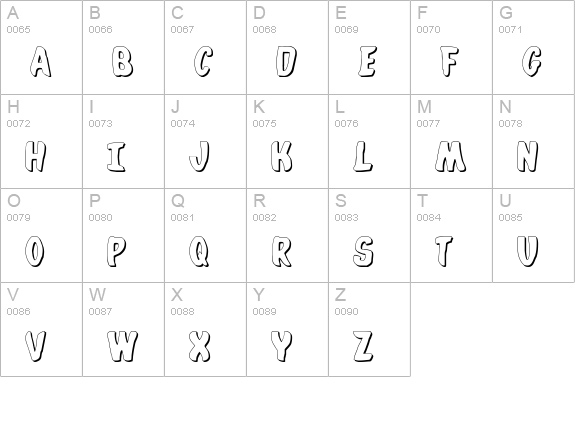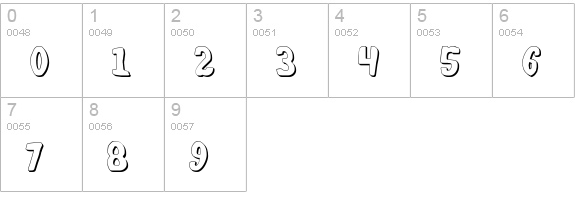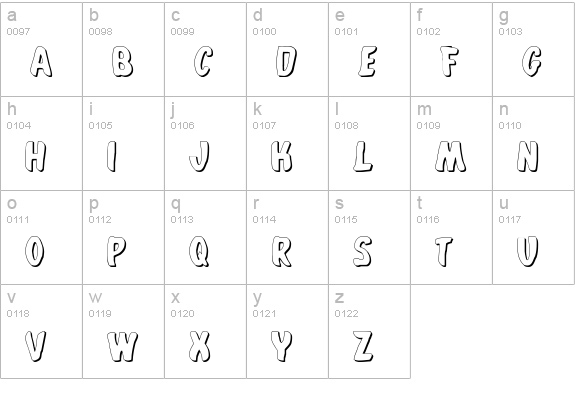
Whatafont Shadow Font Details
Introducing Whatafont Shadow, a stunning typeface that will add a touch of elegance and sophistication to any design project. This captivating font features a unique shadow effect that adds depth and dimension to each letter, making it perfect for eye-catching headlines, stylish logos, and memorable branding materials. Whatafont Shadow is designed with meticulous attention to detail, ensuring each character is perfectly balanced and harmoniously interconnected. Its sleek and modern appearance exudes confidence and professionalism, making it a versatile choice for a wide range of creative applications. Not only does Whatafont Shadow offer exceptional aesthetics, but it also boasts exceptional functionality. With a wide range of weights and styles, this font allows for seamless versatility and adaptability across various design contexts. Whether you're aiming for a bold and impactful statement or a subtle and refined look, Whatafont Shadow has got you covered. What's even better is that Whatafont Shadow is available for free download exclusively at FontsMarket.com. This means that you can easily access and enjoy this remarkable font without any hassle or financial burden. Embrace the freedom to elevate your designs with this exceptional typeface, and let your creativity run wild. So why wait? Take advantage of this incredible opportunity and enhance your design projects with the timeless elegance of Whatafont Shadow. Download it today and experience the seamless blend of style, functionality, and affordability that this font brings to the table. Discover the power of Whatafont Shadow and unlock limitless creative possibilities for your next project.